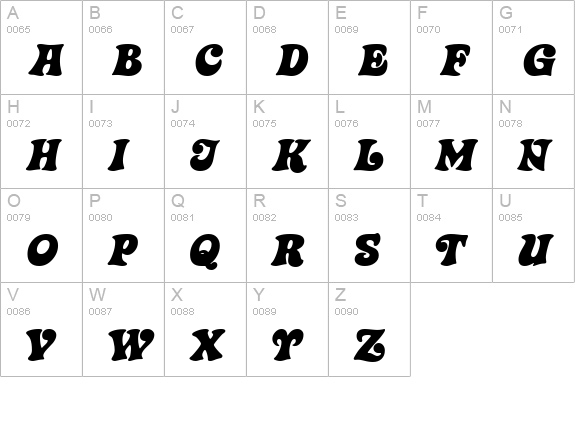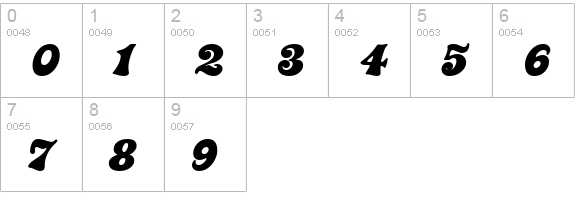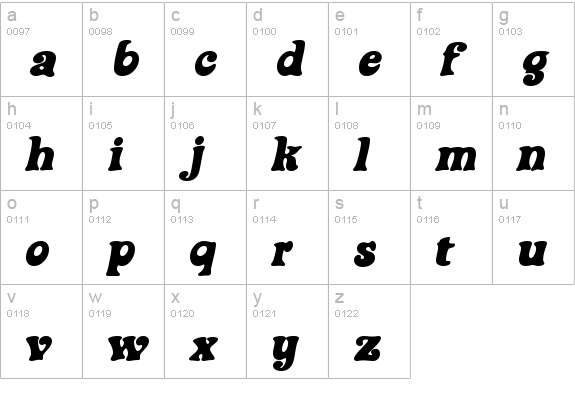
DandelionJF font is a stunning typeface that perfectly captures the essence of whimsy and elegance. With its delicate curves and playful design, this font is sure to add a touch of charm to any project. Whether you're designing a wedding invitation, creating a logo for a boutique, or simply adding a touch of personality to your personal blog, DandelionJF font is the perfect choice. One of the best things about DandelionJF font is that it is free. Yes, you read that right - this amazing font is freely available for download at FontsMarket.com. This means that you can enjoy the beauty and versatility of DandelionJF font without any cost. It's a rare gem in the world of typography, where high-quality fonts often come with a hefty price tag. But don't let the fact that DandelionJF font is free fool you - it is a font of exceptional quality. Every letter and character has been meticulously crafted to ensure legibility and visual appeal. The flowing lines and intricate details make DandelionJF font a true work of art. Whether you're a professional designer or a casual hobbyist, DandelionJF font is a must-have in your collection. It can effortlessly elevate any design, adding a touch of sophistication and style. So why wait? Head over to FontsMarket.com and download DandelionJF font for free today. Your projects will thank you.